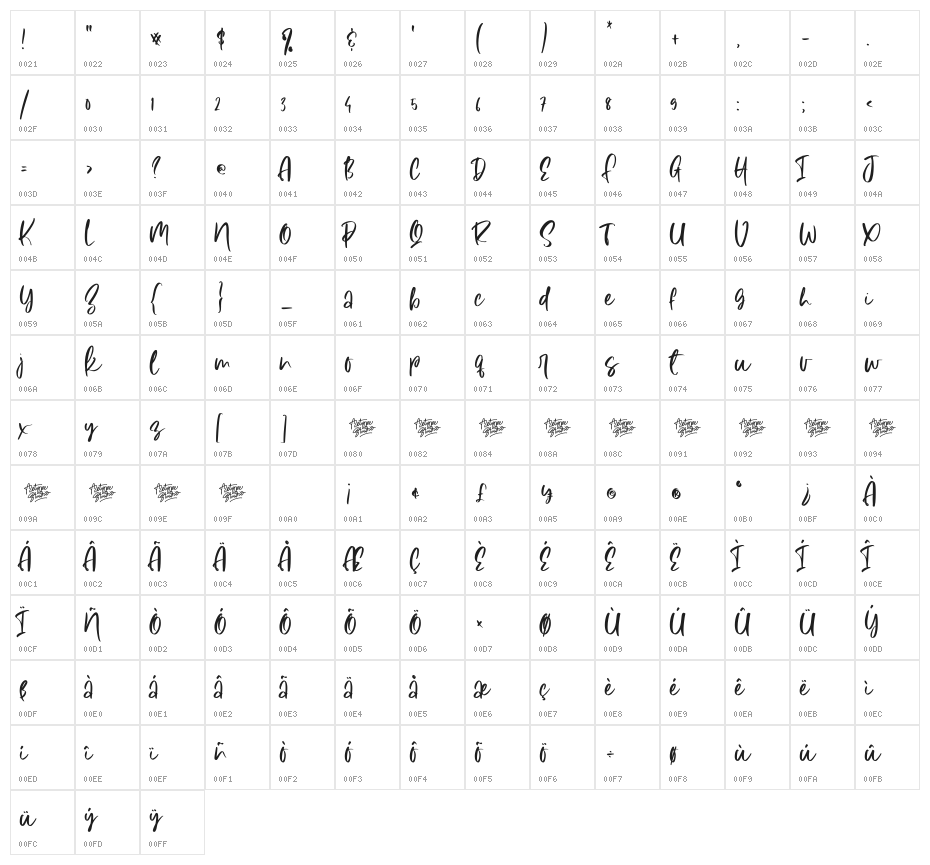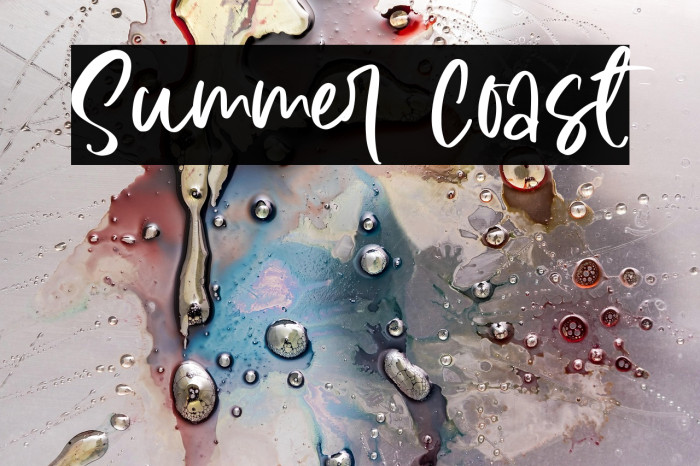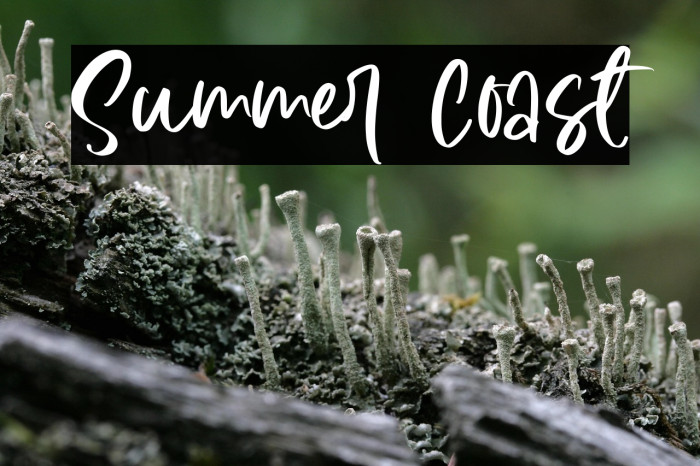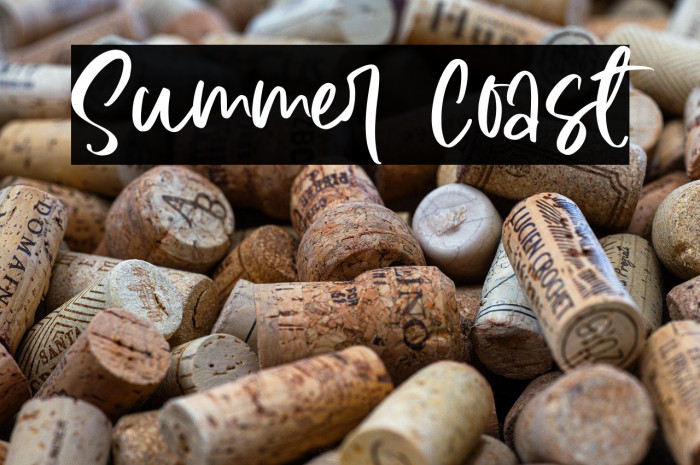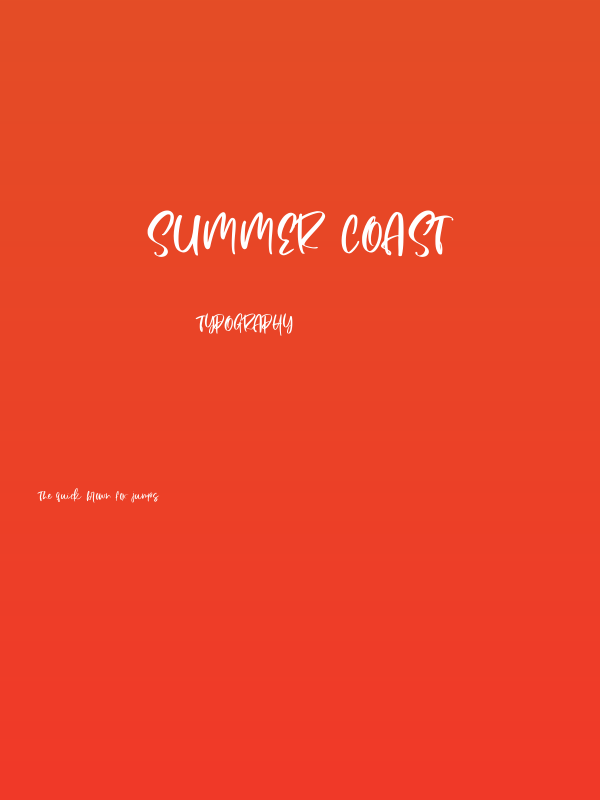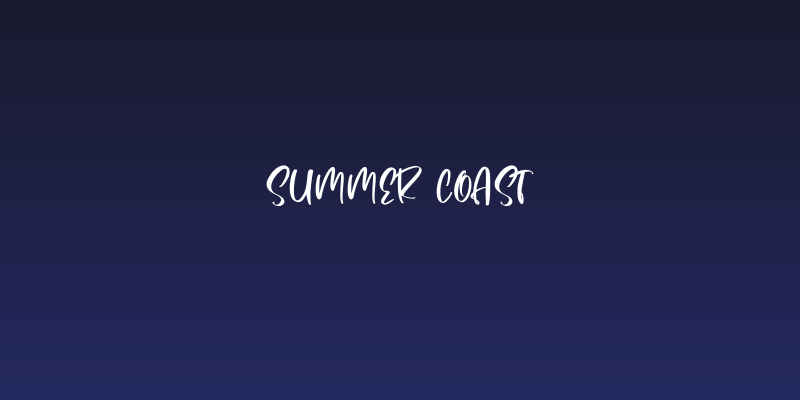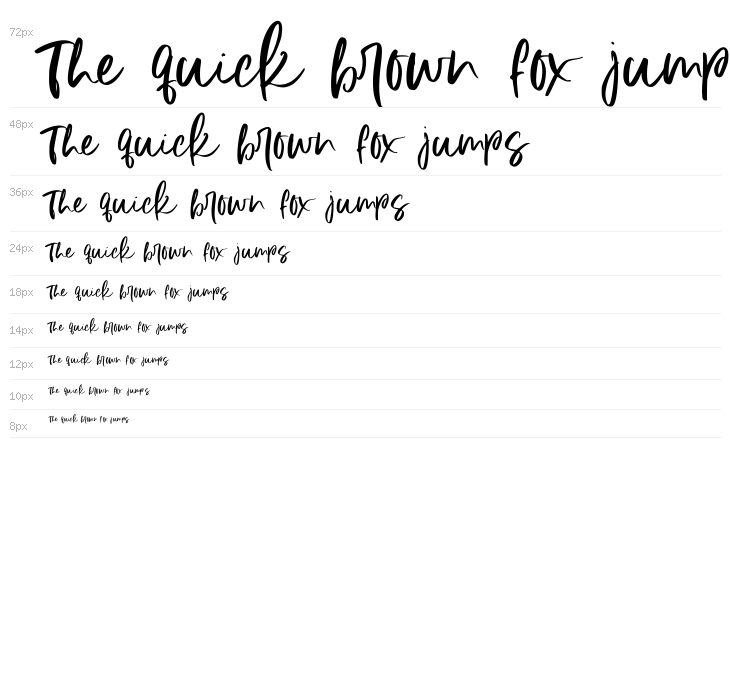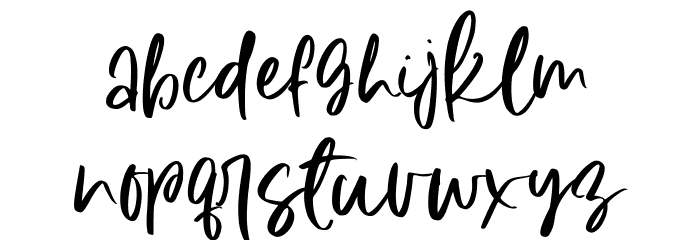
Summer Coast Font
Summer Coast Description
This font exudes a lively and energetic vibe, characterized by its bold, flowing script style. The letters are crafted with a brush-like texture, giving them a hand-drawn appearance that is both casual and artistic. The uppercase and lowercase letters maintain a consistent style, with smooth curves and varying stroke widths that add a dynamic feel. The numbers and special characters are equally expressive, ensuring a cohesive look across all elements. This font is perfect for projects that require a personal touch, such as invitations, greeting cards, or branding materials that aim to convey creativity and warmth.
| Proposed Projects | Ideal for invitations, greeting cards, branding, and creative projects. |